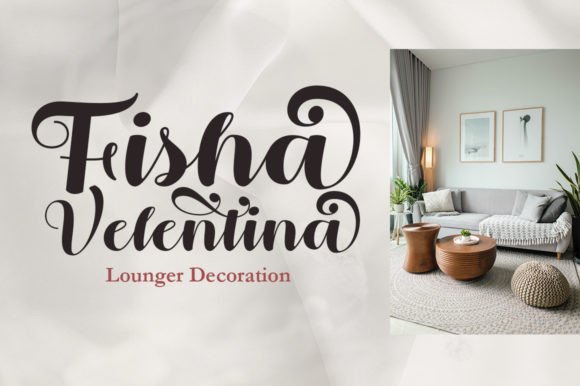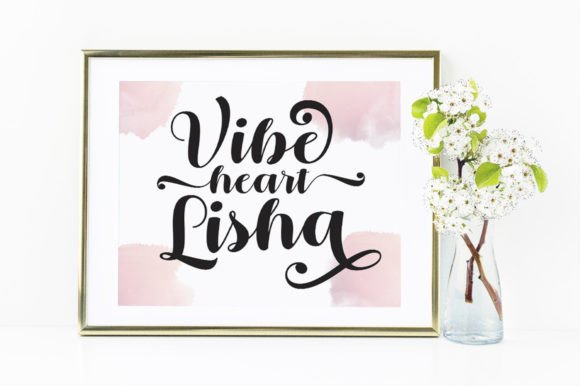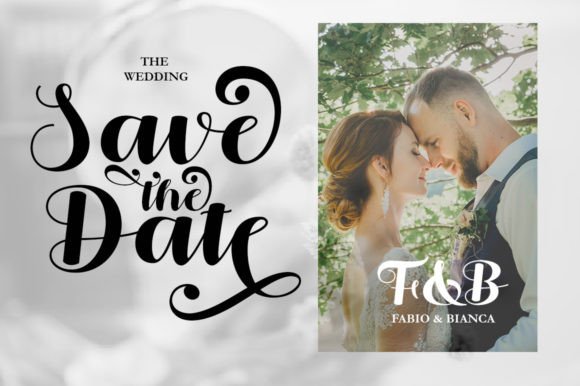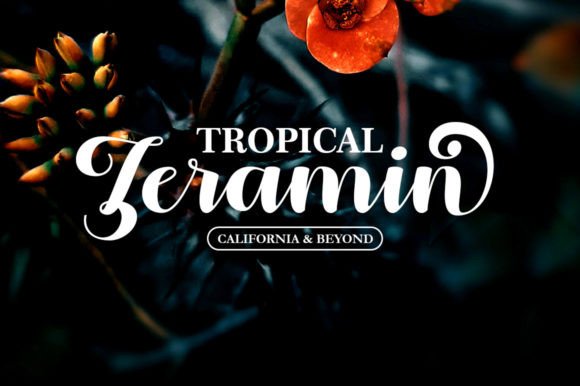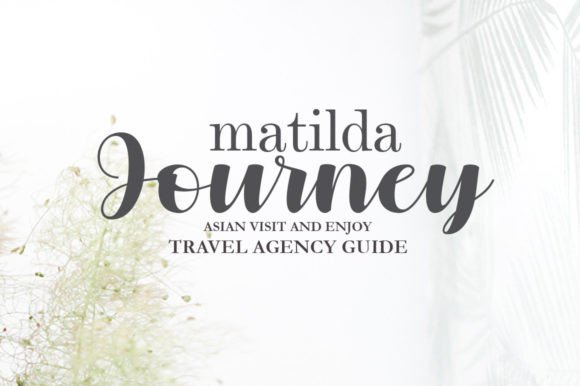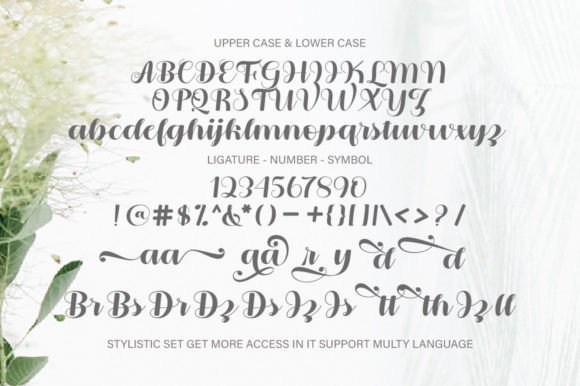
Bellies Font: Elevate Your Designs with a Modern and Sweet Calligraphic Script
In the world of typography, fonts play a crucial role in bringing creative ideas to life. For designers, crafters, and anyone looking to add a personal touch to their projects, finding the right font can make all the difference. This is where Bellies Font comes into play – a modern and sweet calligraphic script font designed to capture hearts and elevate designs.
The Charm of Bellies Font
Bellies is a masterfully designed calligraphic script font that exudes elegance and charm. Its modern sweetness makes it a versatile choice for a wide range of projects, from wedding invitations and branding materials to digital content and craft projects. The font’s unique character lies in its ability to blend traditional calligraphy with contemporary design elements, making it a true favorite among designers and crafters alike.
Key Features of Bellies Font
- Modern and Sweet Design: Bellies boasts a fresh and appealing look that is sure to capture attention. Its calligraphic style adds a touch of sophistication and elegance to any project.
- Versatility: Whether you’re working on a wedding invitation, a brand logo, or a digital blog post, Bellies can adapt to any design need. Its flexibility makes it a valuable asset in any designer’s toolkit.
- High-Quality Output: With Bellies, you can achieve high-quality typography that stands out. Its clear and crisp appearance ensures that your designs look professional and polished.
Applications of Bellies Font
The versatility of Bellies Font makes it suitable for a myriad of applications. Here are some of the most popular uses:
- Wedding and Event Planning: Create stunning wedding invitations, save-the-date cards, and event banners that set the tone for your special day.
- Branding and Marketing: Elevate your brand’s visual identity with a logo or slogan that incorporates Bellies, adding a touch of elegance and sophistication.
- Digital Content: Enhance your blog posts, social media graphics, and website headers with a font that grabs attention and adds a personal touch.
- Crafting and DIY Projects: From scrapbooking to crafting personalized gifts, Bellies can add a beautiful, handmade feel to your projects.
Tips for Using Bellies Font Effectively
To make the most out of Bellies Font, consider the following tips:
- Pair with Complementary Fonts: For maximum impact, pair Bellies with clean, sans-serif fonts to create a balanced and visually appealing design.
- Experiment with Colors: Don’t be afraid to play with different colors and gradients to find the perfect match for your design.
- Adjust Letter Spacing: Tweaking the letter spacing can help you achieve the desired flow and feel for your text.